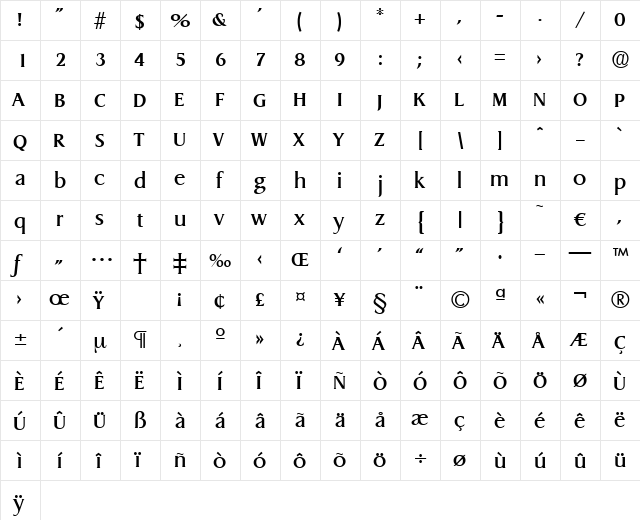
Dragon-Medium Regular Font Preview
Dragon-Medium Regular
Dragon-Medium Regular Font Details
Design Context for Dragon-Medium Typeface
Dragon-Medium is a composed and adaptable typeface that performs quietly and consistently across a wide range of design contexts.